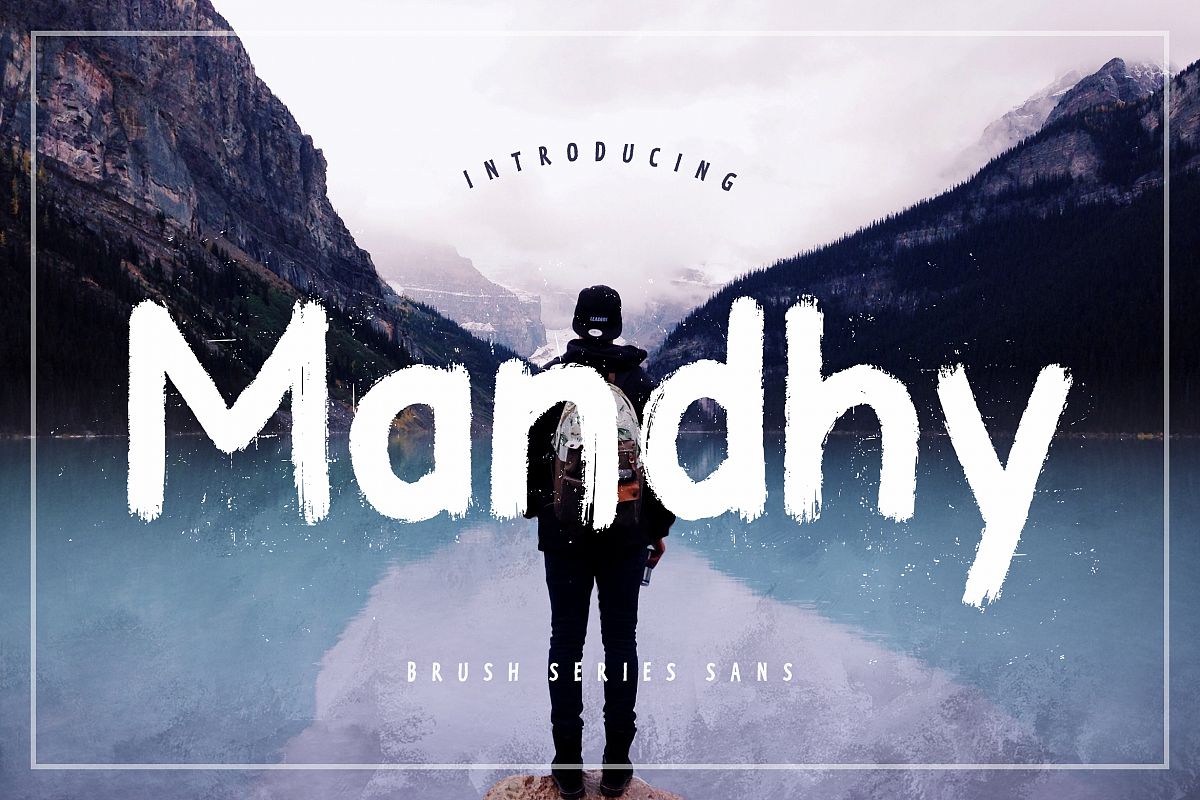
Mandhy Brush Series Sans
Mandhy
Mandhy is serif sans fancy font with natural movement and brush style.
Mandhy is perfect for branding projects, logo, wedding designs, social media posts, advertisements, product packaging, product designs, label, photography, watermark, invitation, stationery and any projects that need handwriting taste.